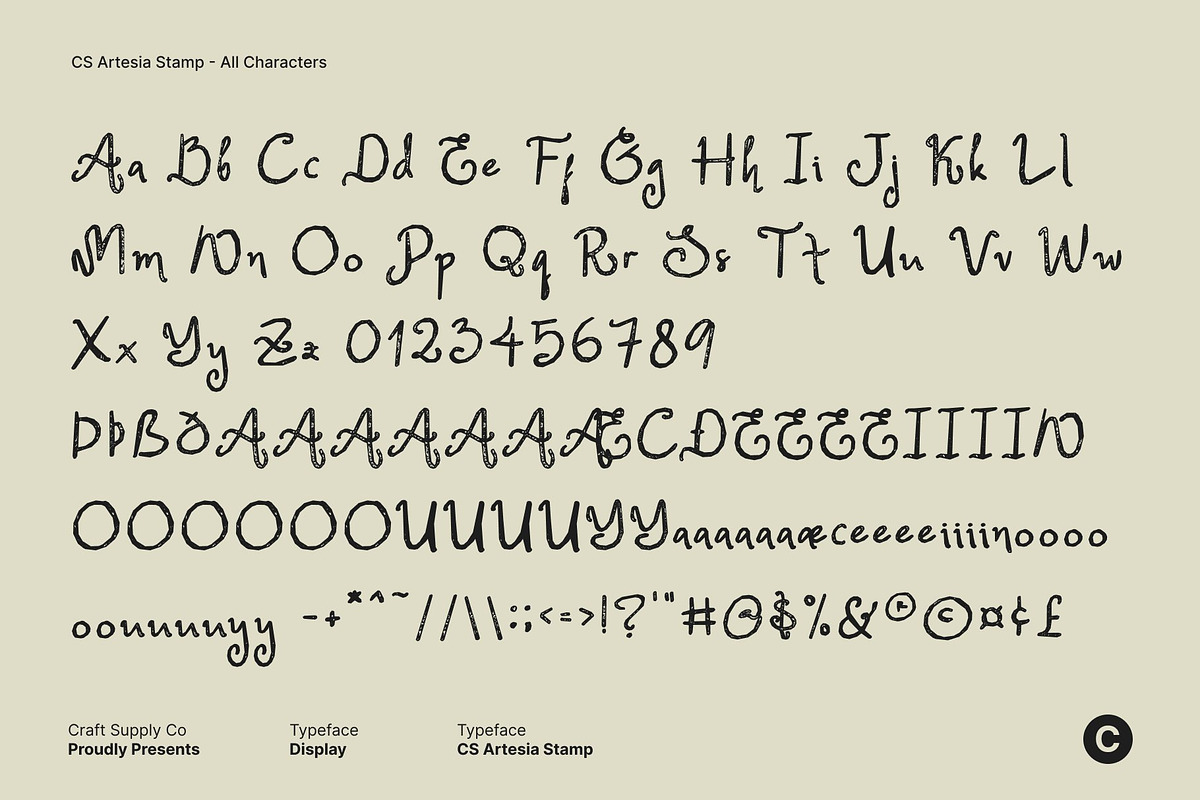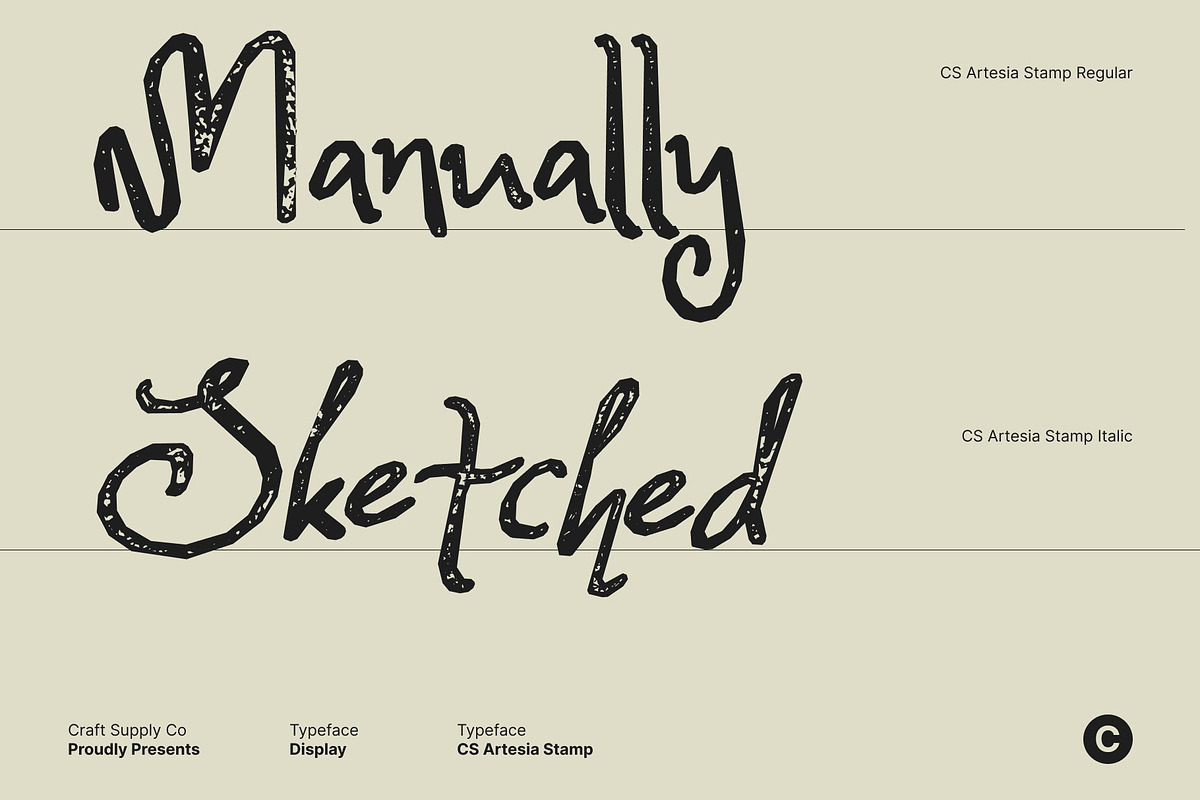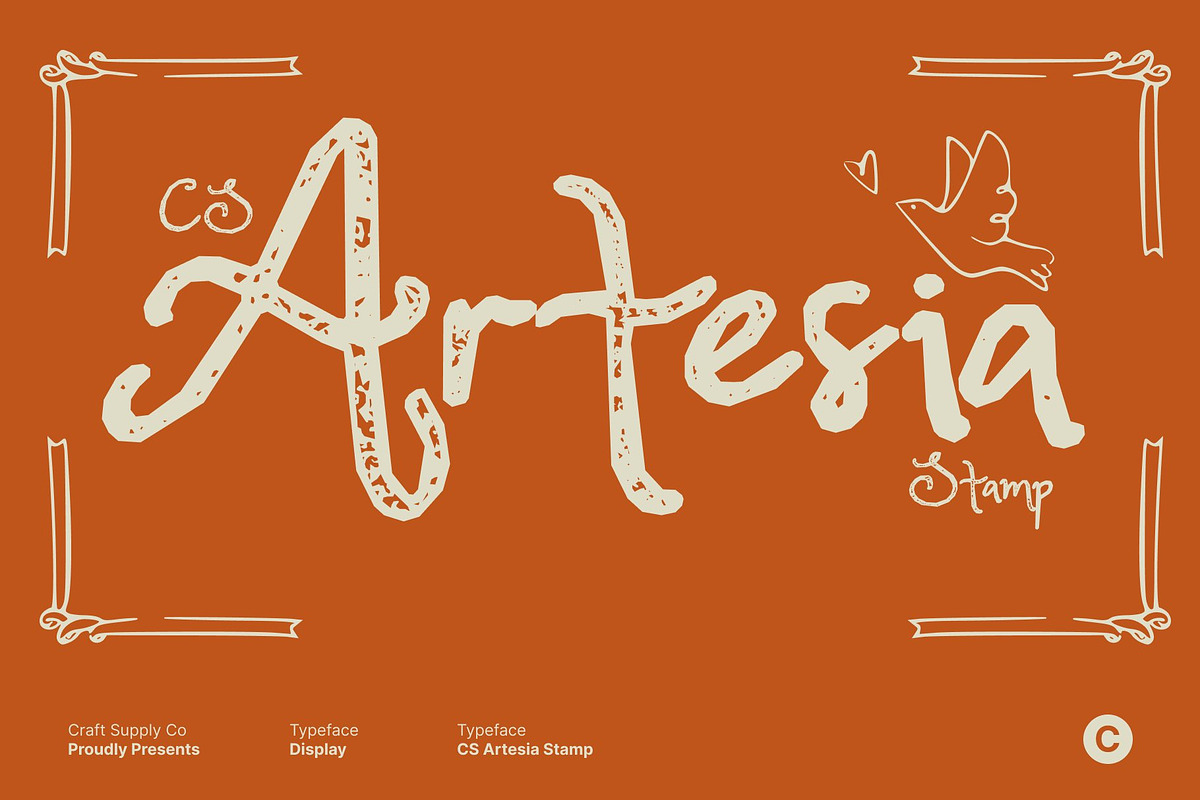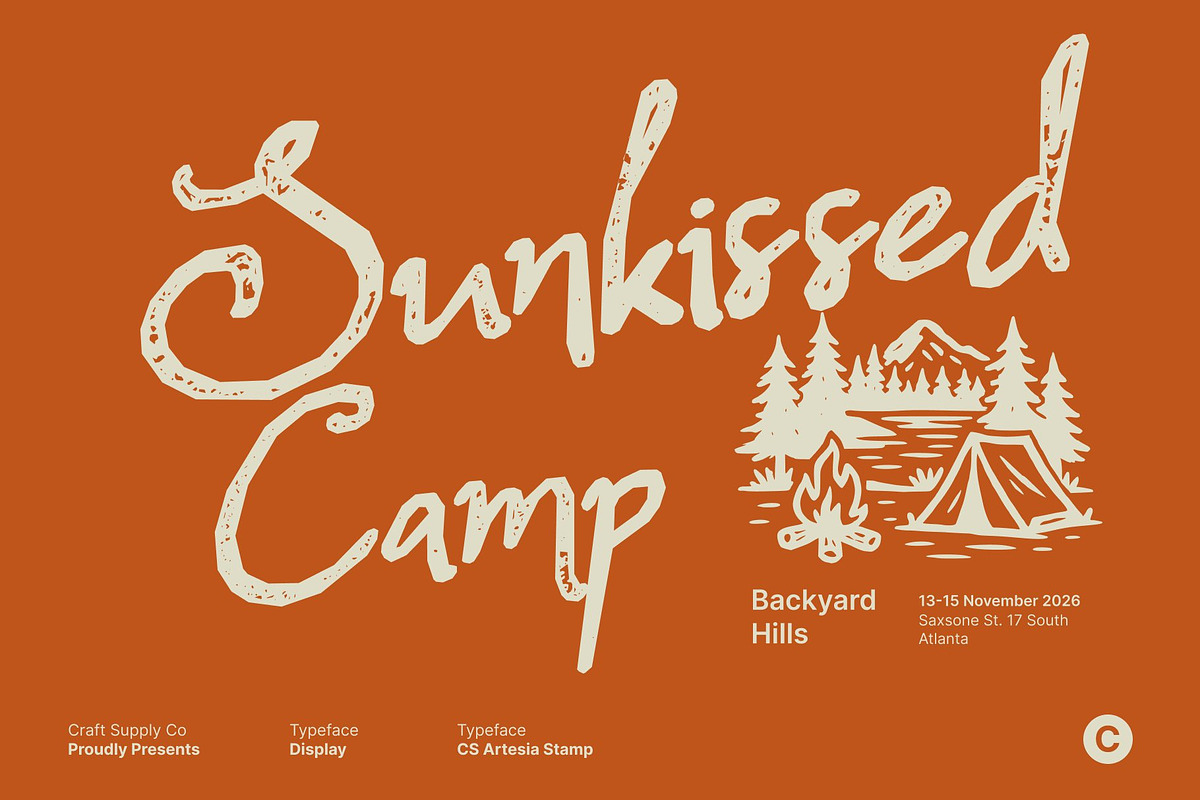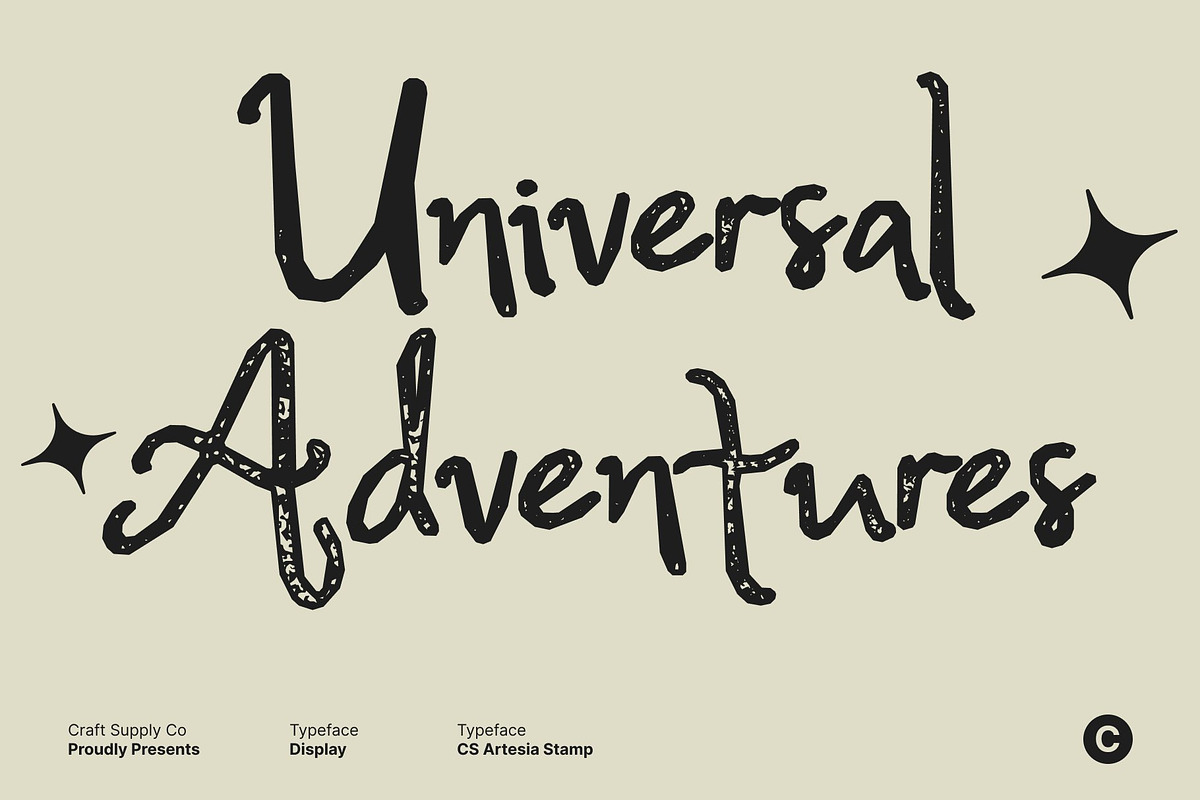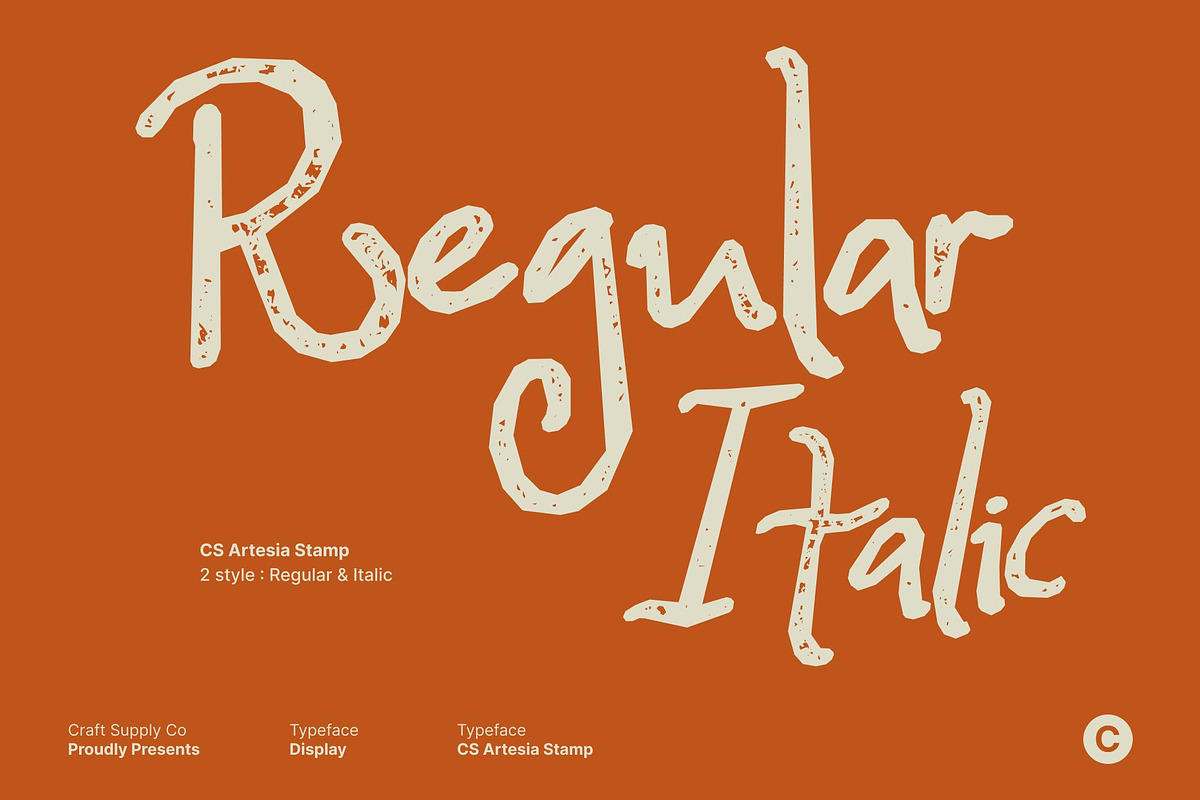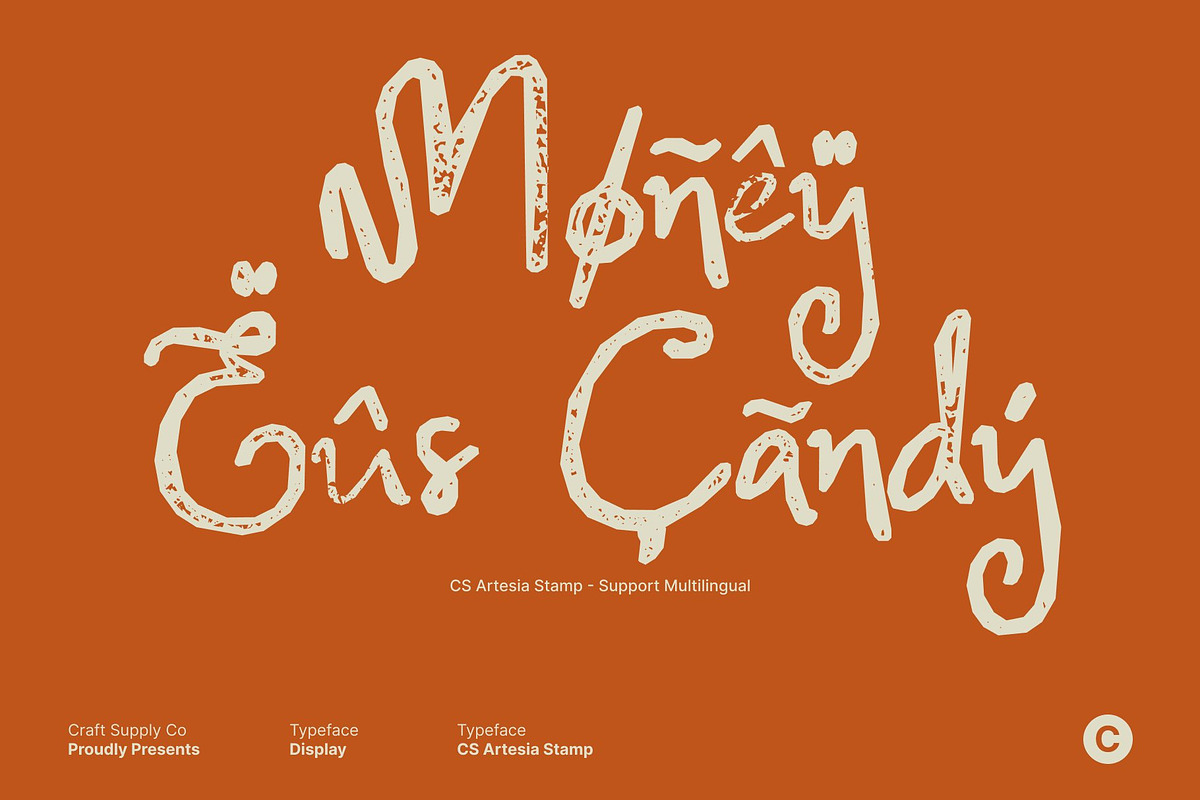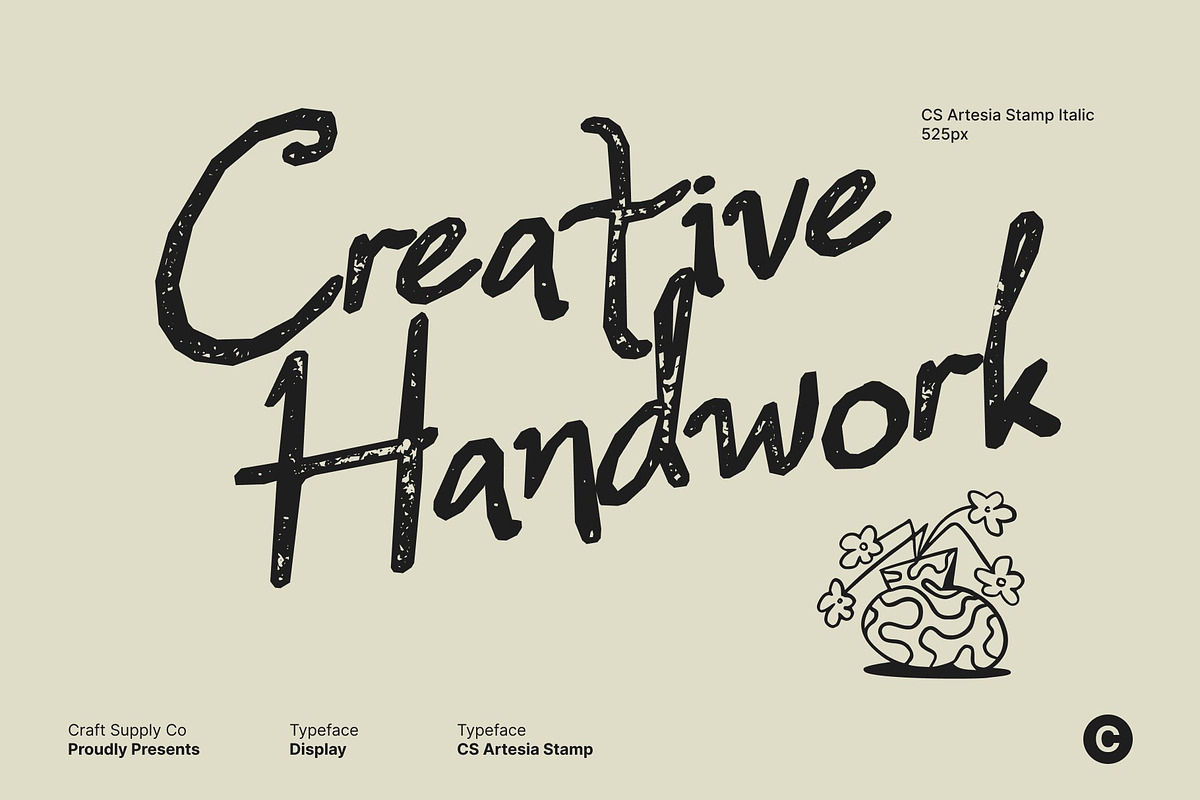
CS Artesia Stamp
CS Artesia Stamp – Handcrafted Beauty with Whimsical Charm
Whimsical Handwritten Font with Expressive Flair This is a whimsical handwritten font that captures the beauty of natural curves and hand-drawn creativity. Every stroke flows gracefully, conveying warmth, personality, and refined confidence. Enhanced with a subtle stamp effect, the font gains a textured, artistic finish that adds character and visual depth.
Beautiful Curves with Vintage Stamp Texture The defining feature of this font lies in its smooth, flowing curves, designed to connect harmoniously and evoke the rhythm of elegant handwriting. The stamped texture introduces gentle imperfections and organic wear, creating a soft vintage impression without diminishing clarity. This combination delivers graceful expression with a nostalgic, artistic touch perfect for fashion, art, aesthetic styles, and lifestyle branding.
Hand-Drawn Traditional Style with Authentic Character Celebrating the charm of traditional craftsmanship, blends hand-drawn details with a timeworn stamped finish. This fusion adds authenticity and emotional depth, offering a sense of intimacy often absent in polished digital fonts. Its handcrafted personality makes it an excellent choice for wedding invitations, artisanal packaging, and designs that value sincerity and care.
Perfect for Stylish and Creative Designs From fashion editorials and luxury branding to creative posters and artistic layouts, this font adapts effortlessly across stylish applications. Its whimsical nature, refined structure, and textured stamp effect strike a beautiful balance between creativity and sophistication ensuring every design feels timeless, expressive, and uniquely personal.